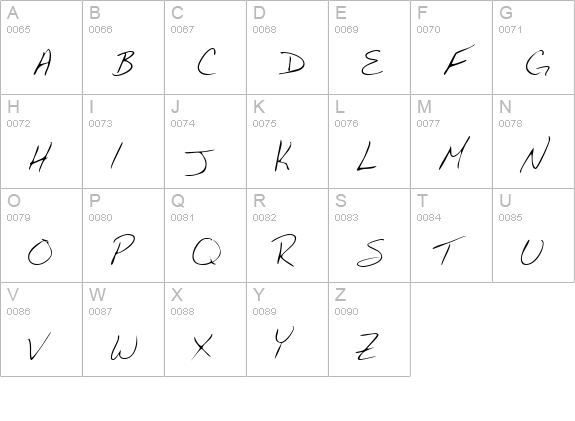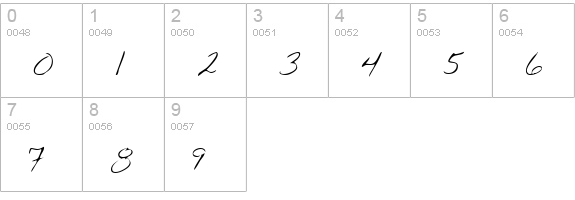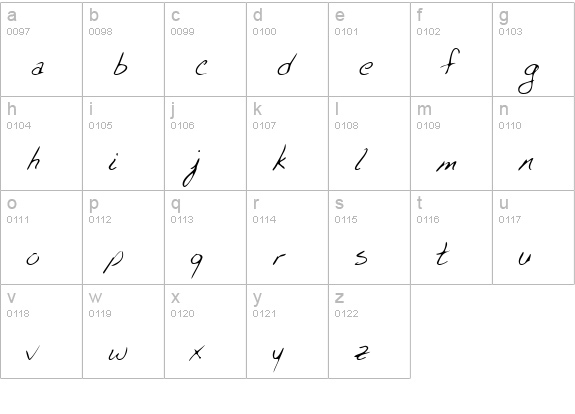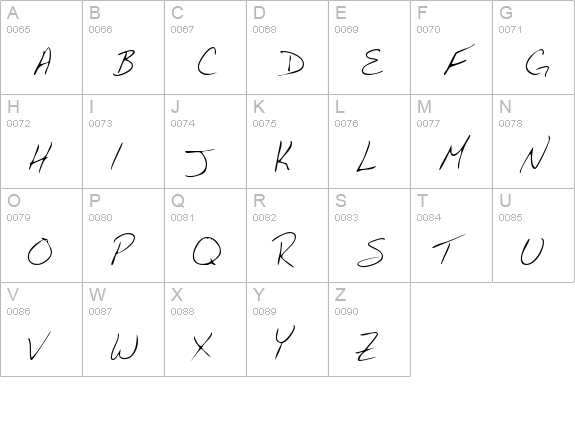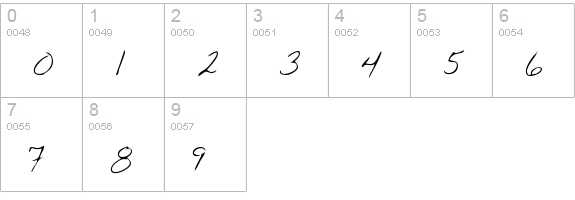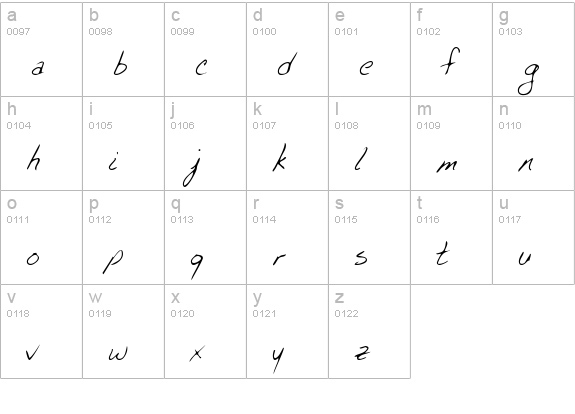
ChicksHand Regular Font Details
ChicksHand Regular is the standard, neutral variant in the ChicksHand typeface family \xE2\x80\x94 well suited to general body text, paragraphs, and standard typographic work.
ChicksHand Regular font is a charming and playful typeface that exudes a sense of warmth and friendliness. Its handwritten style gives a personal touch to any design, making it perfect for a variety of projects such as invitations, greeting cards, posters, and more. The smooth and flowing strokes of this font add a touch of elegance while maintaining a casual feel. Best of all, ChicksHand Regular font is available for free download at FontsMarket.com. This means that you can easily add this delightful font to your collection without any cost. Whether you're a designer looking to add a unique flair to your work or someone simply wanting to enhance their projects with a touch of creativity, ChicksHand Regular font is the perfect choice. Download it today and let your creativity soar!